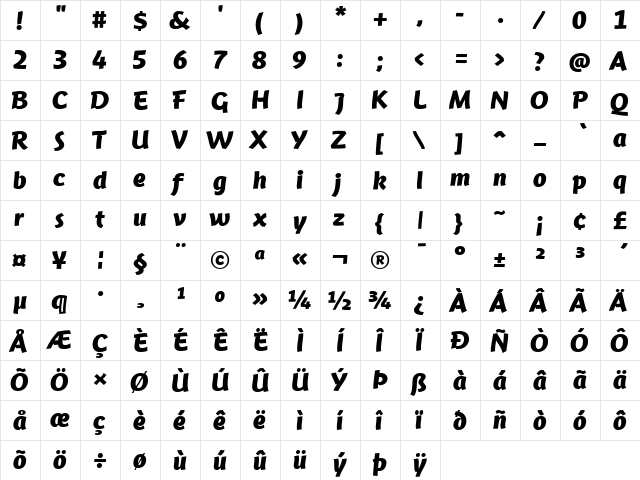
JambonoTF-Bold Bold Font Preview
JambonoTF-Bold Bold
JambonoTF-Bold Bold Font Details
| Foundry | Xavier Dupre published by FontShop International for the FontFont library |
Design Context for JambonoTF-Bold Typeface
JambonoTF-Bold is a composed and adaptable typeface that performs quietly and consistently across a wide range of design contexts. Its bold stroke weight gives it real presence on the page.